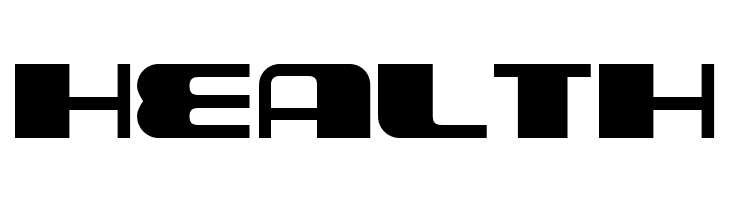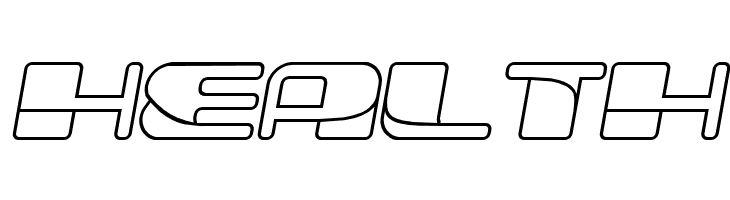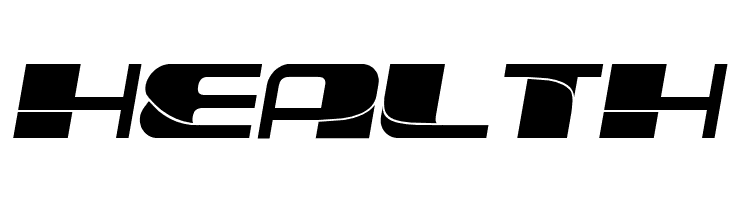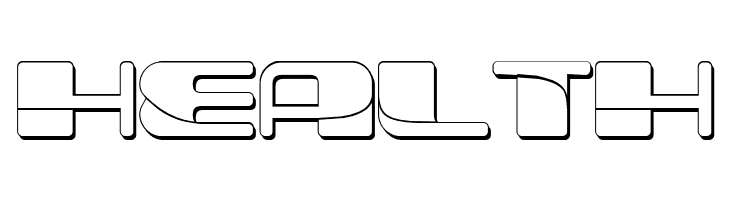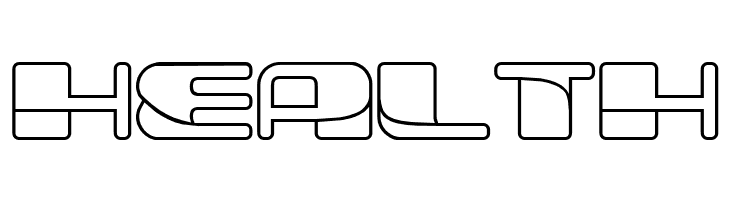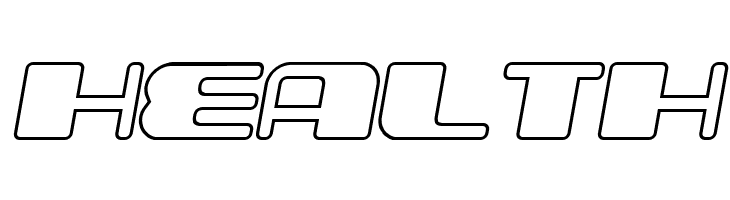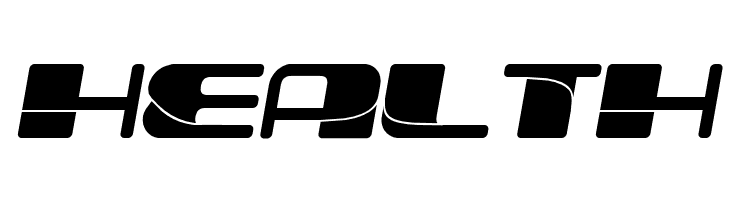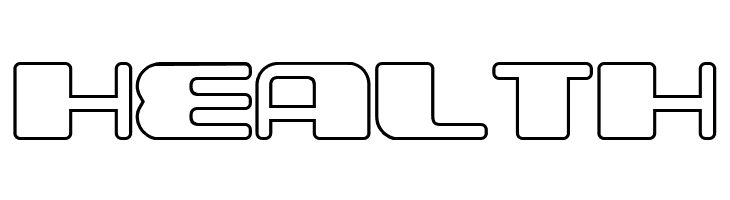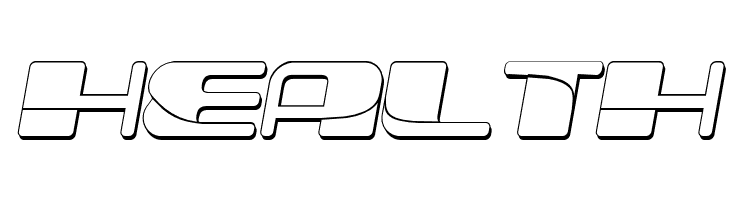
A futuristic 3D italic font with bold outlines and a dynamic, modern style.
A futuristic, 3D geometric font with bold lines and sharp angles.
A futuristic outline font with geometric and modern design elements.
A modern, slanted outline font with a futuristic and dynamic style.
A futuristic, bold font with rounded edges and a geometric design.
A bold, futuristic font with a dynamic slant and rounded, cutout characters.
A bold, futuristic font with sharp angles and a dynamic slant.
A bold, geometric outline font with a modern and futuristic aesthetic.
A bold, slanted outline font with a futuristic and geometric style.